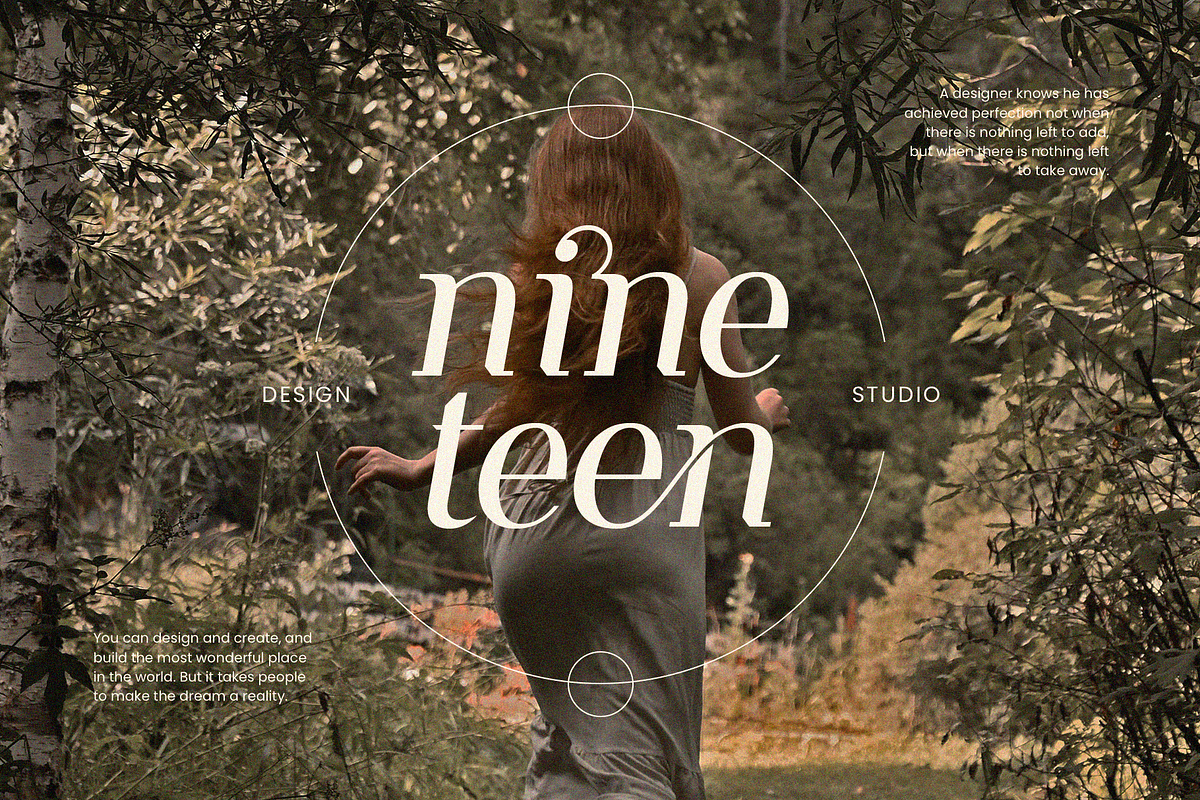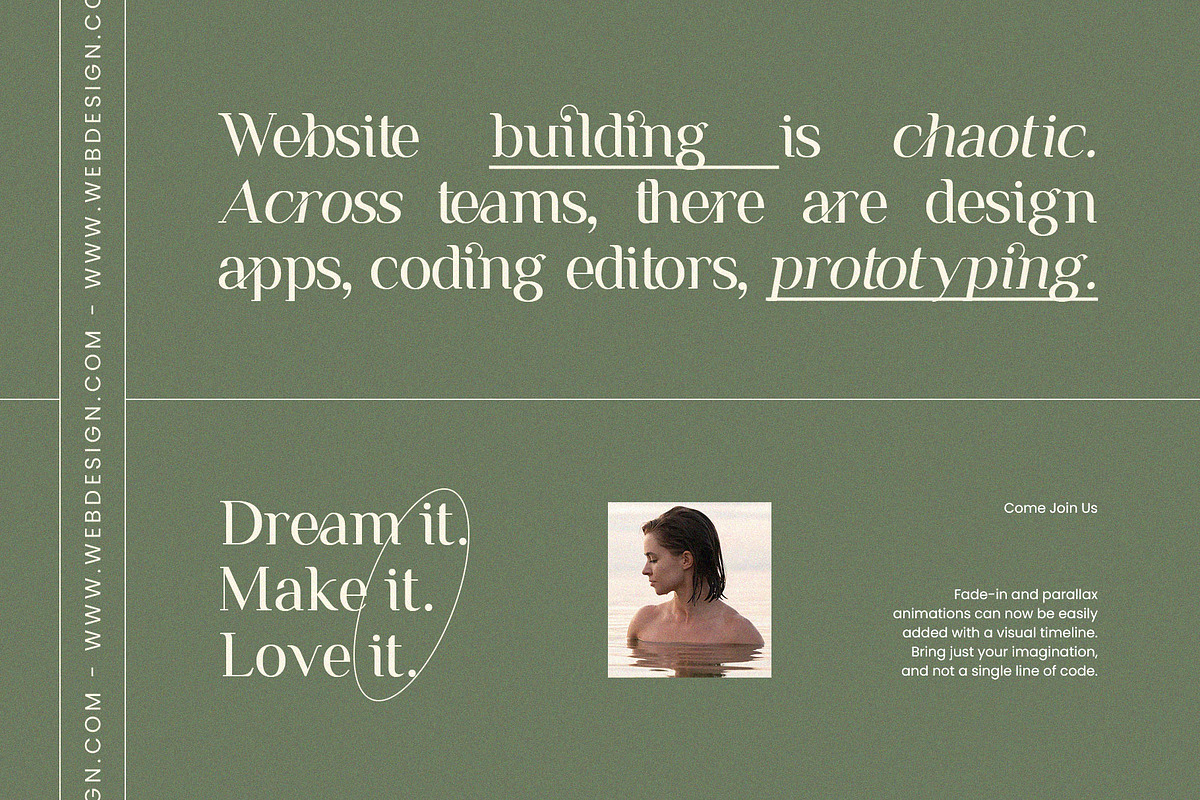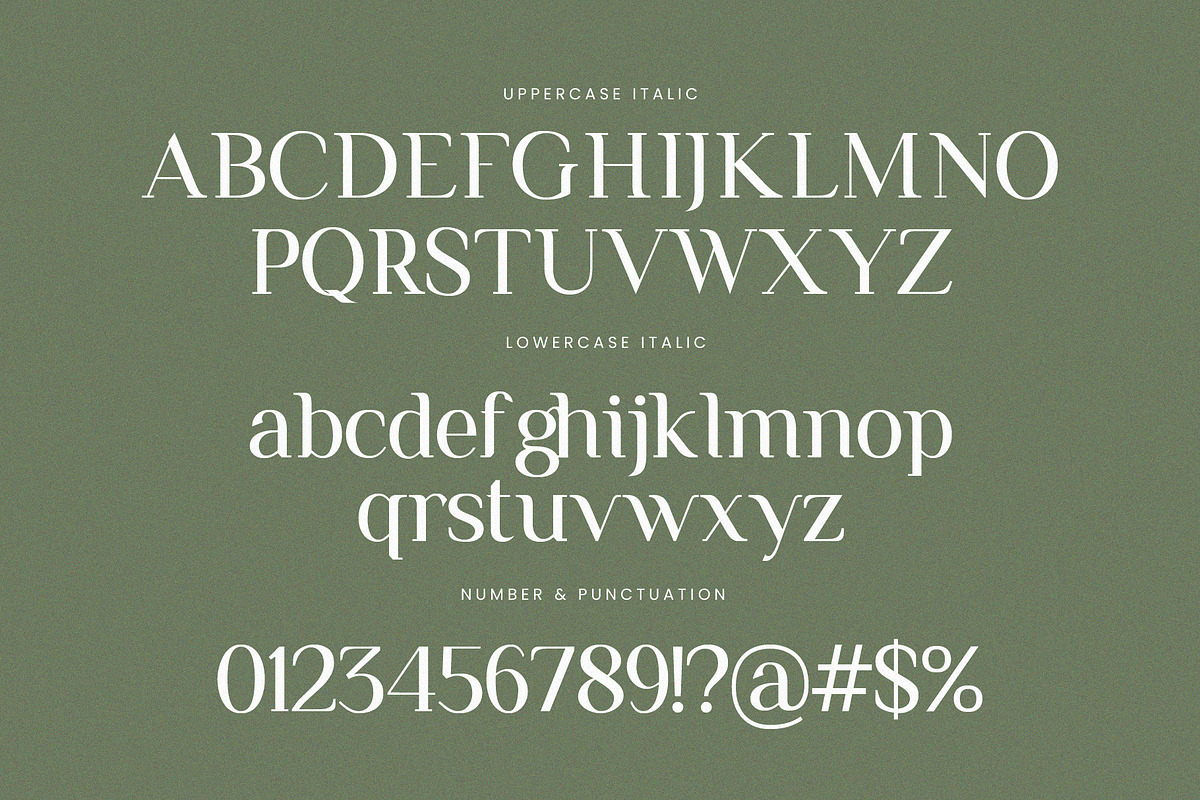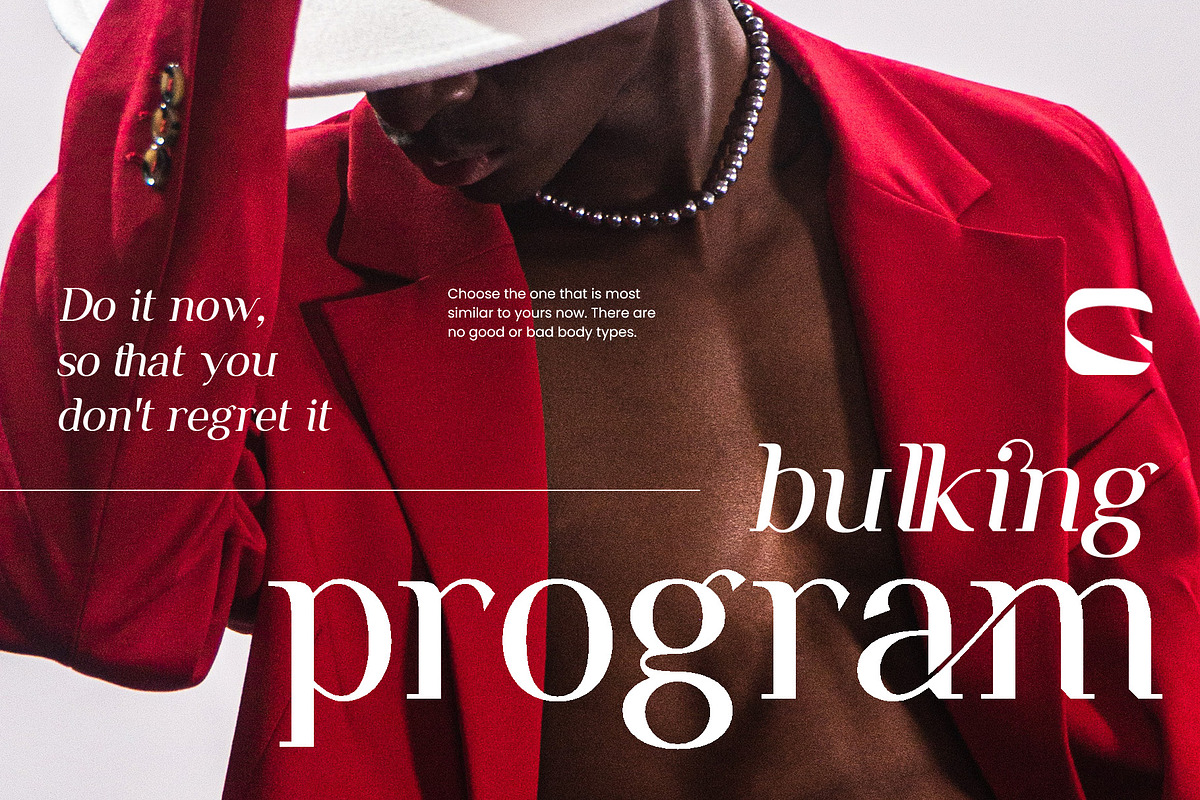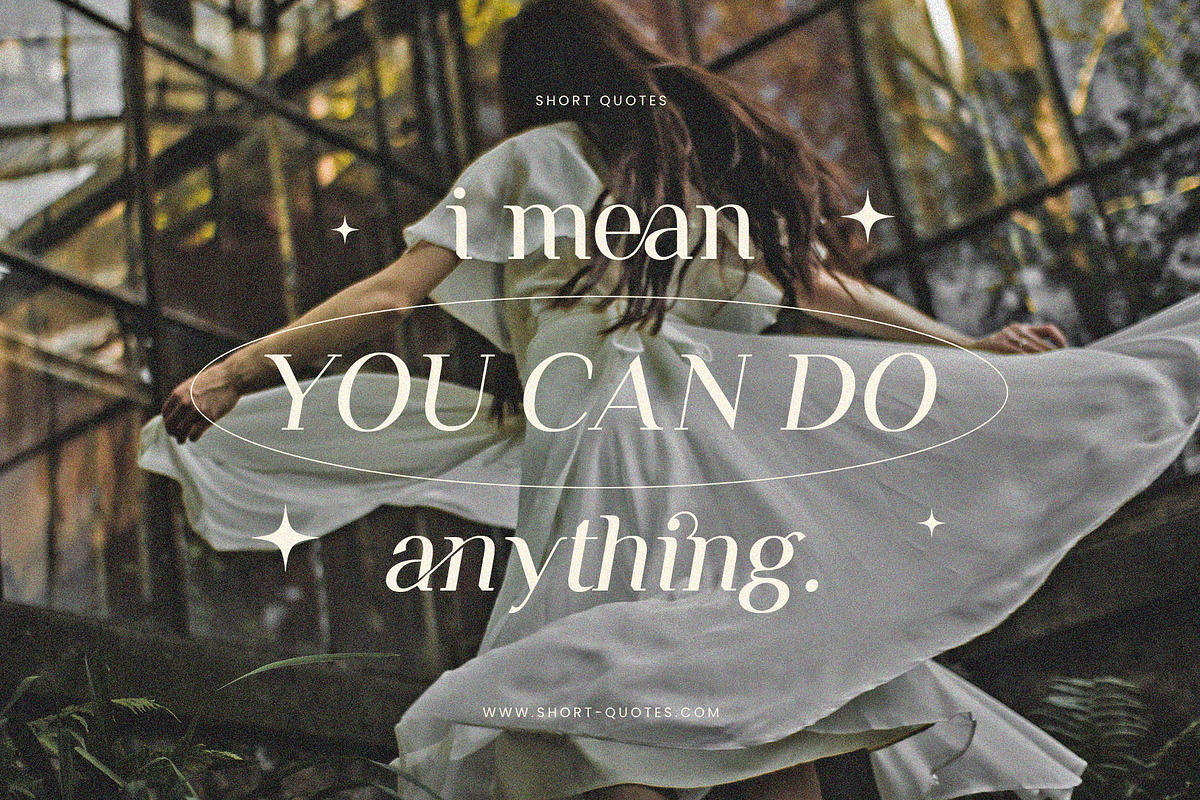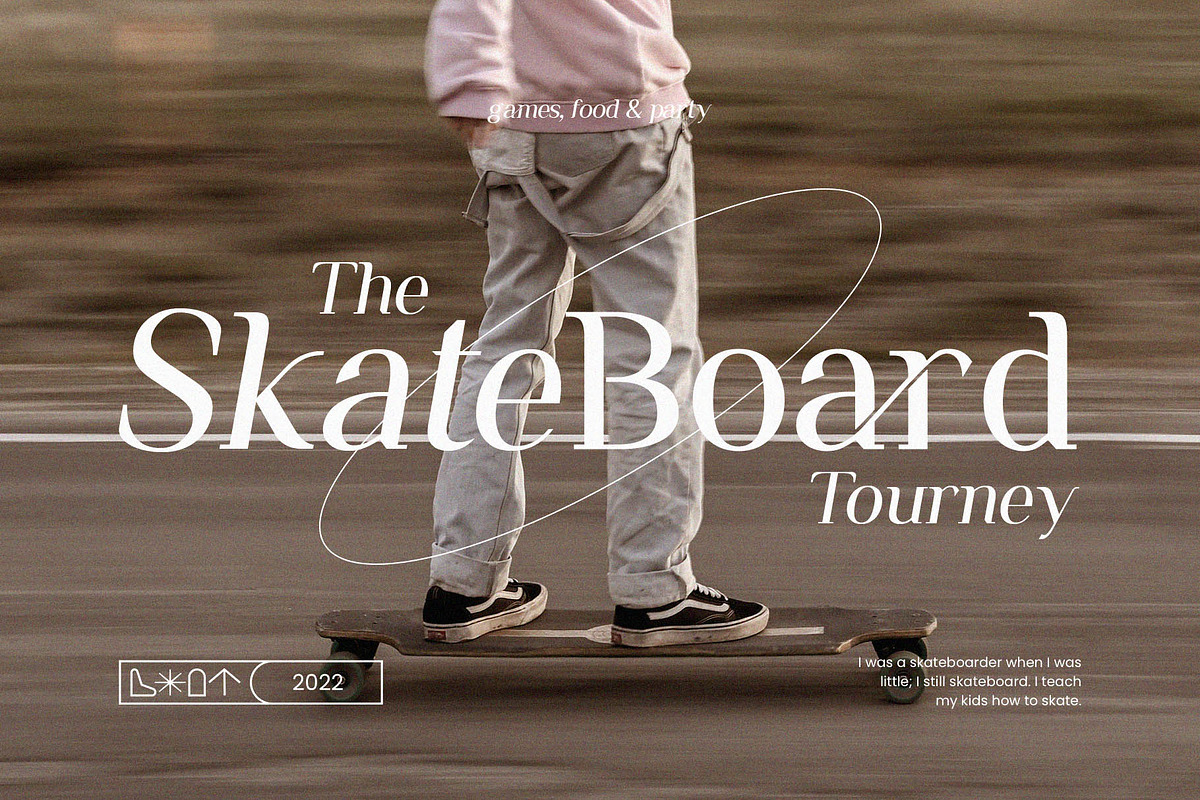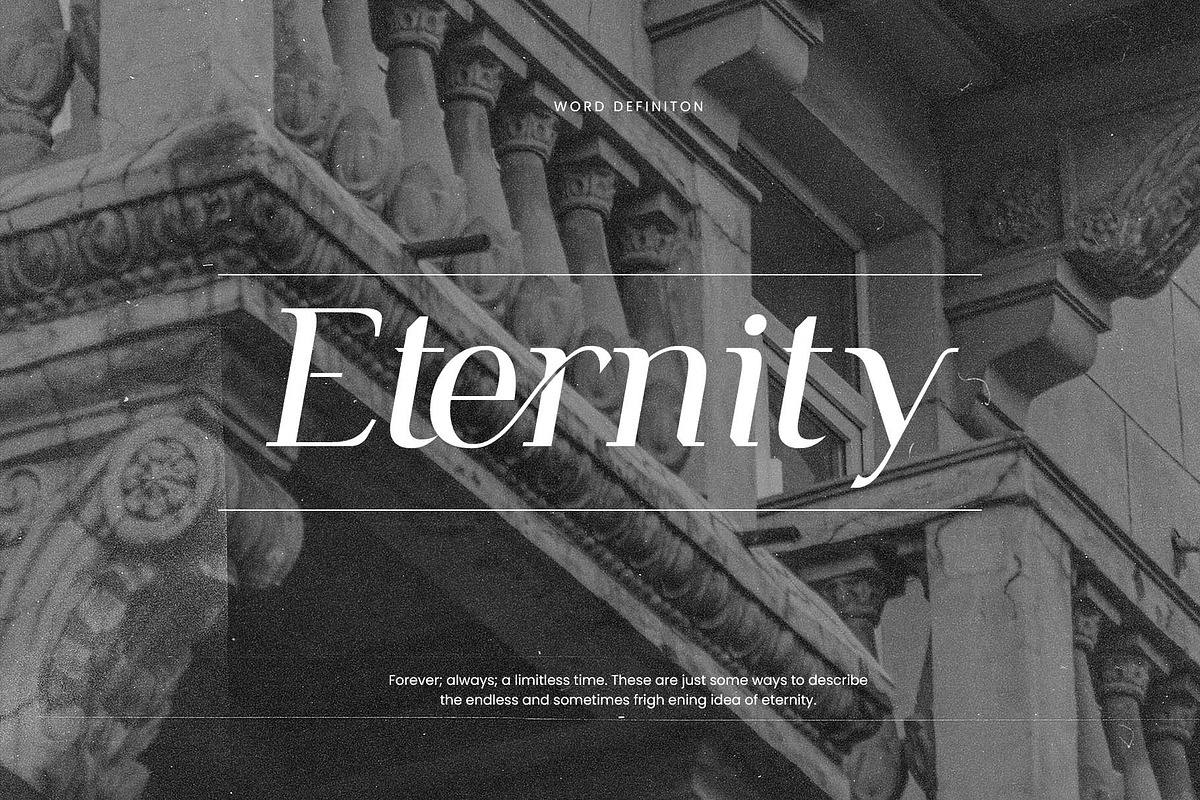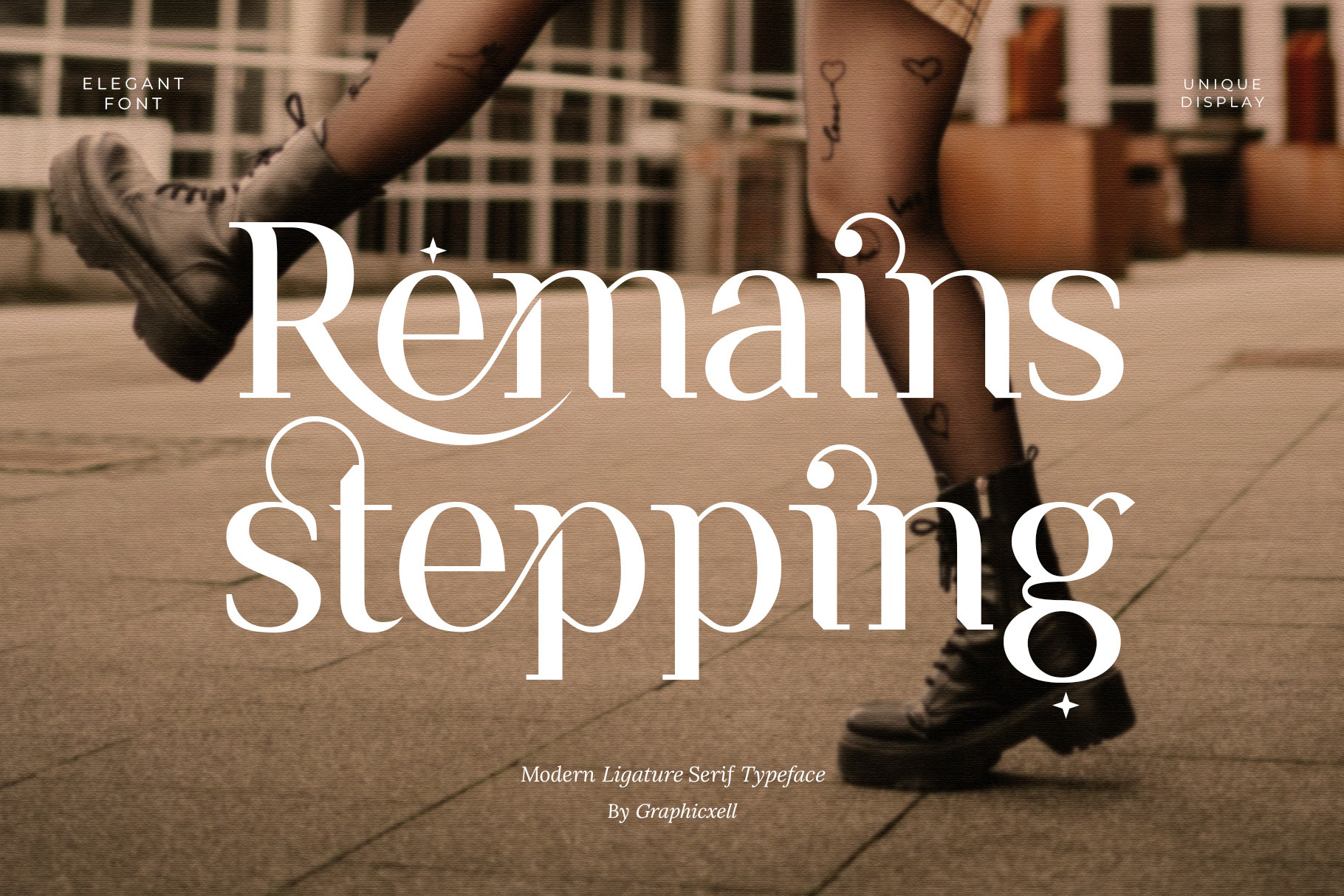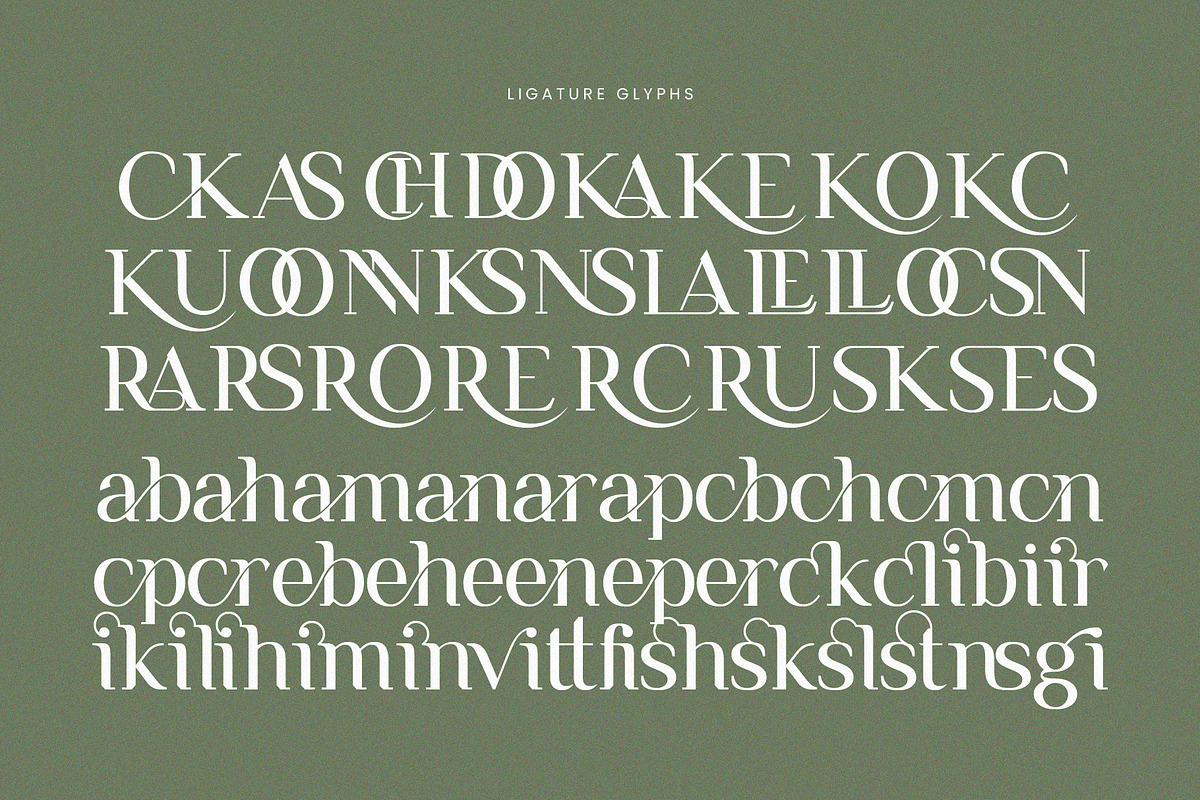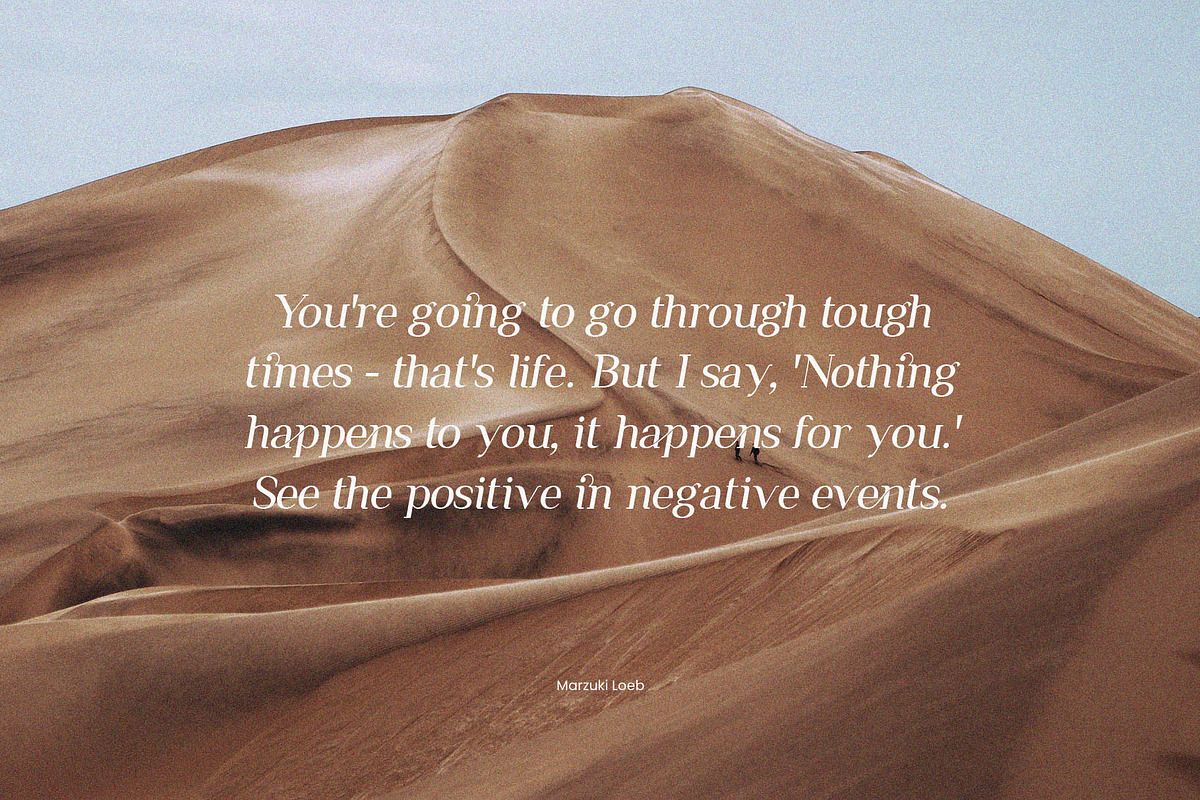
Remains Stepping Ligature Serif Font
Remains Stepping Ligature Serif Font inspired by the famous minimalist logo perfect for the purposes of designing templates, brochures, videos, advertising branding, logos, invitation, layout design, elegant crafting, beauty design and more.